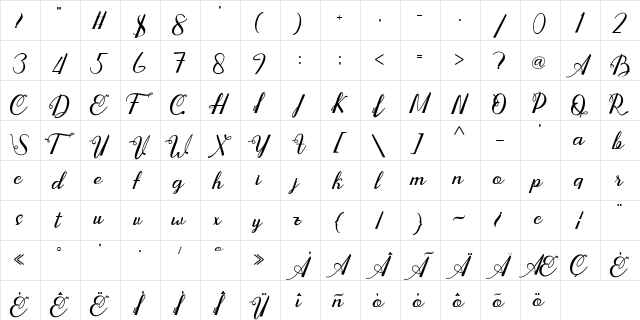
Andara Regular
Design Context for Andara Typeface
Andara is a composed and adaptable typeface that performs quietly and consistently across a wide range of design contexts.